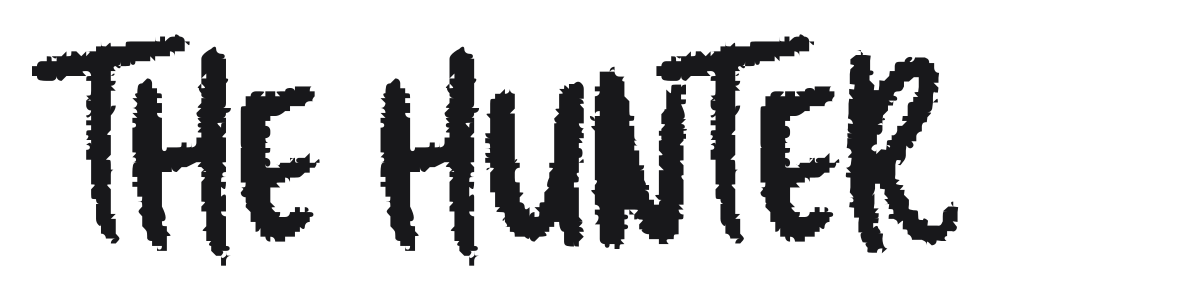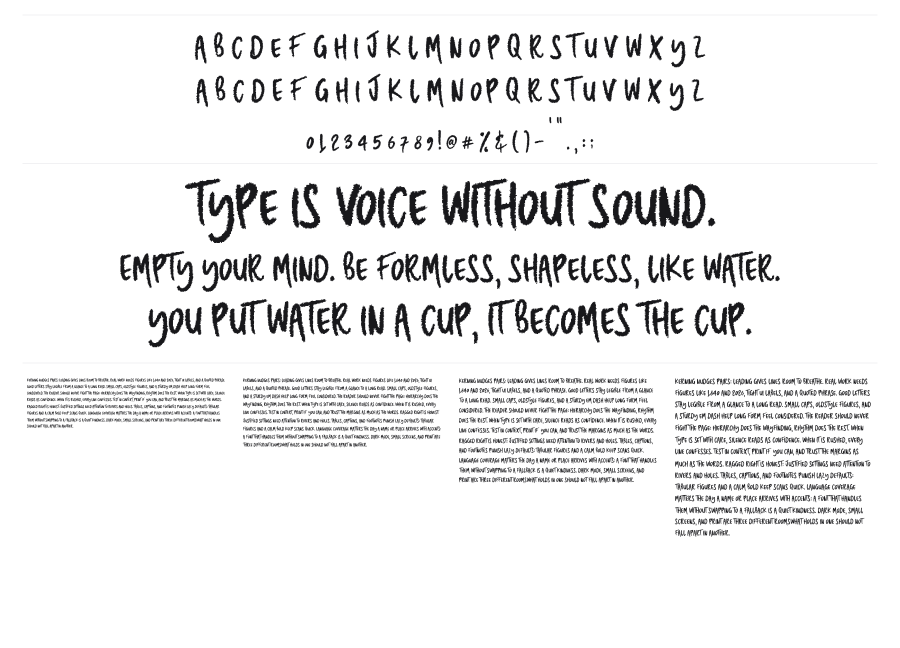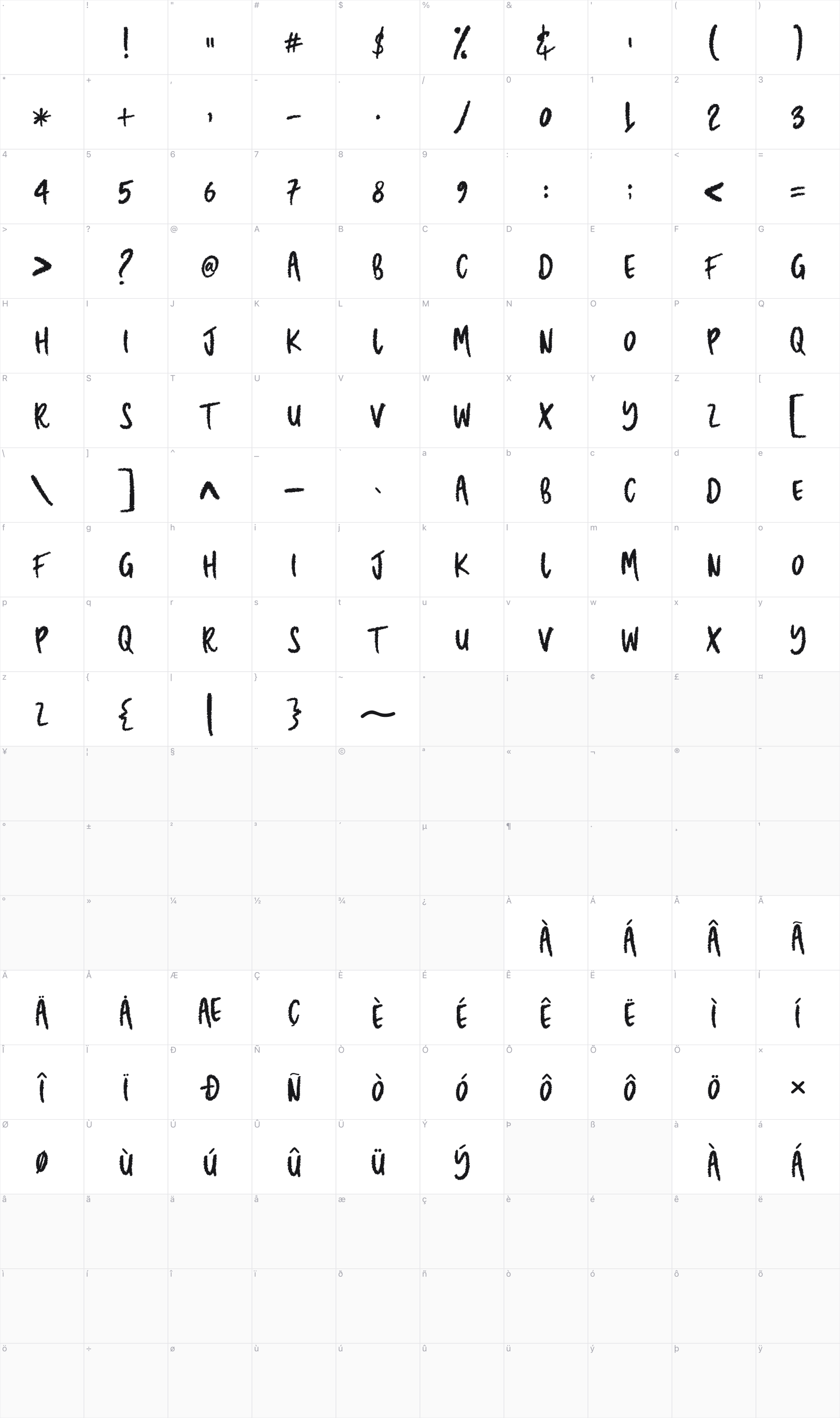
The Hunter
The Hunter is a bold brush-lettered font with heavy, rough-edged strokes that look like paint on a textured surface. Every character carries natural irregularities that sell the handmade quality without feeling sloppy. It brings immediate energy to logos, packaging, and anything that needs a rugged, outdoors-ready attitude.